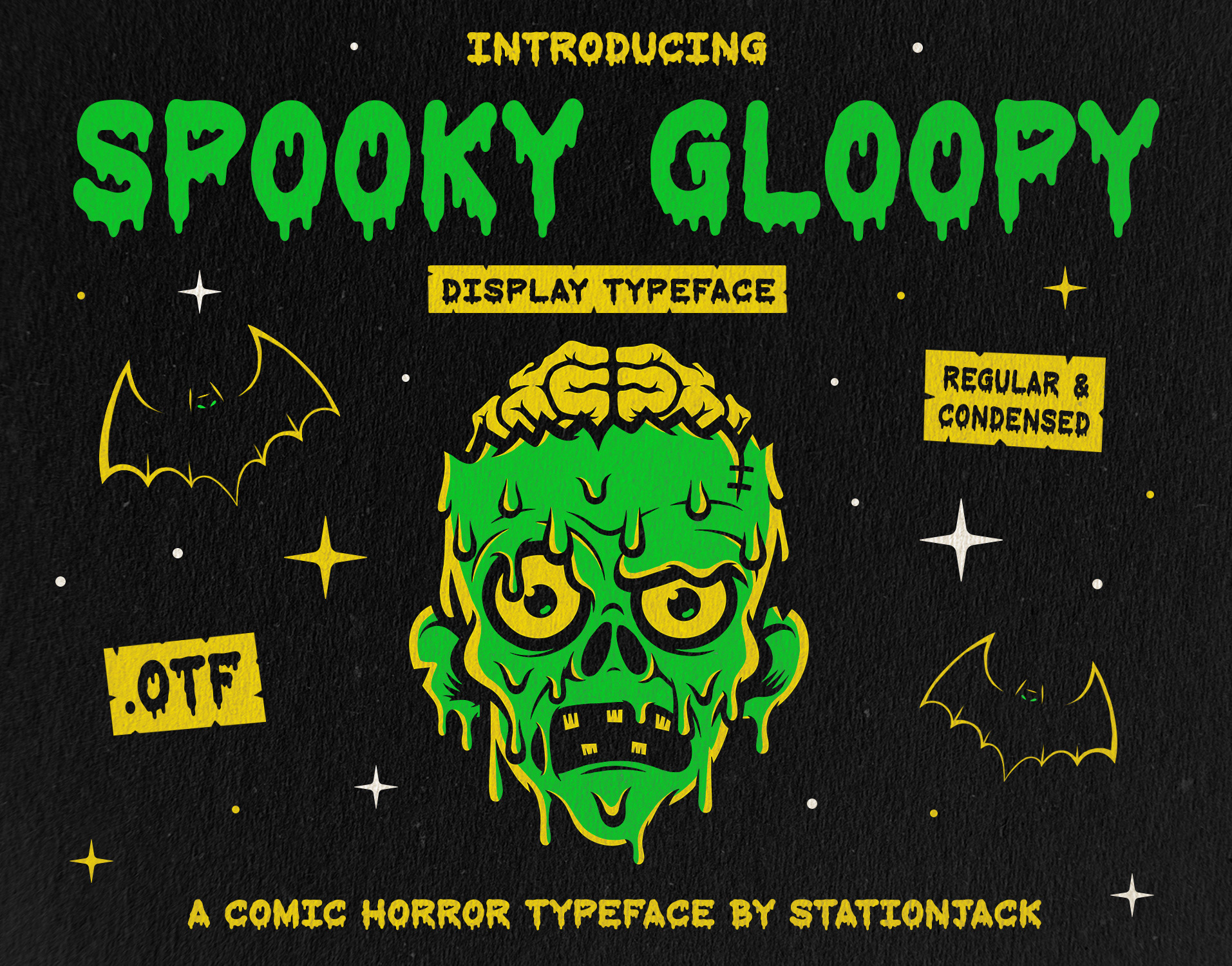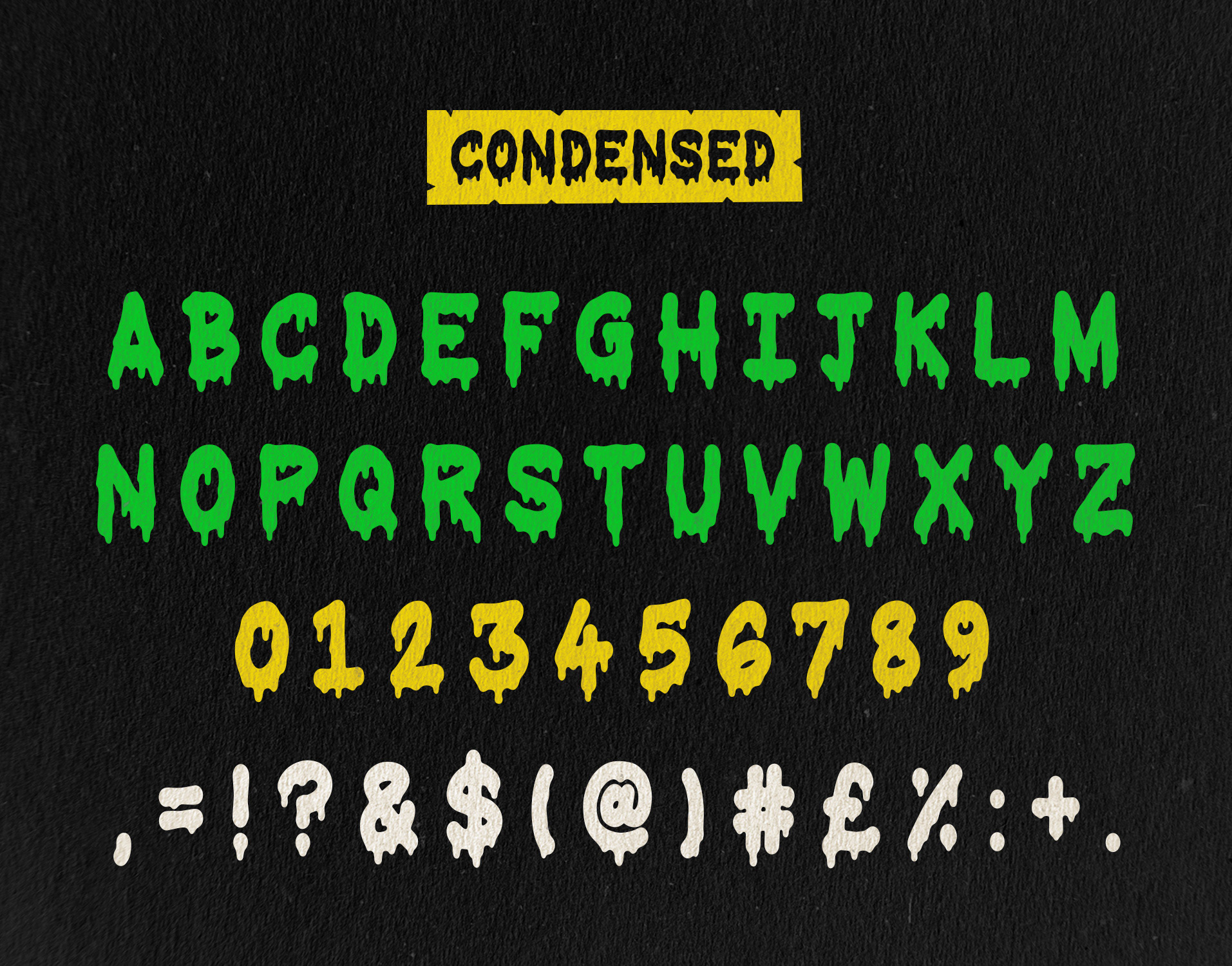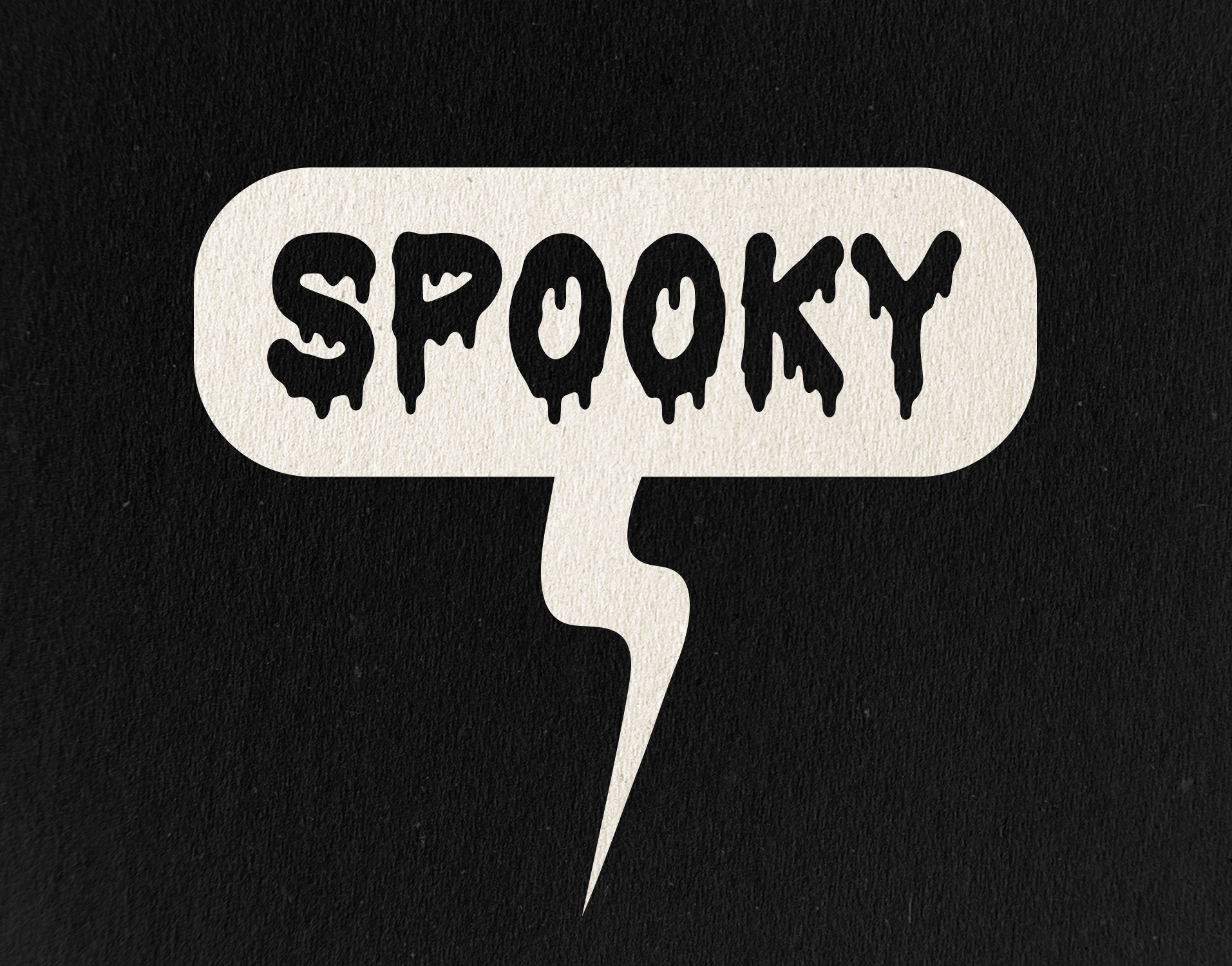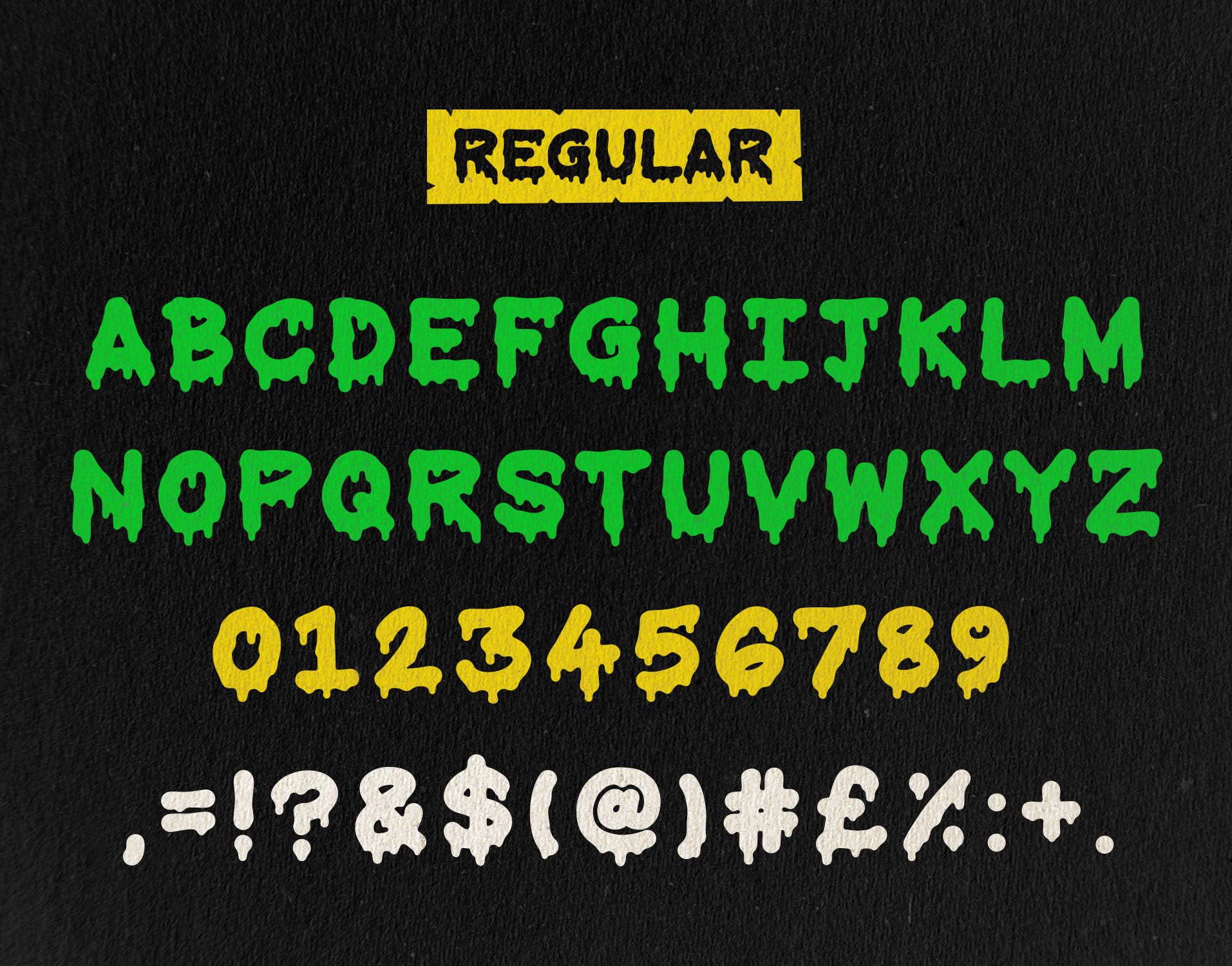
Spooky Gloopy is a comic horror inspired display font. This font includes 2 styles (Regular & Condensed) with upper case letters, numbers and a selection of punctuation.